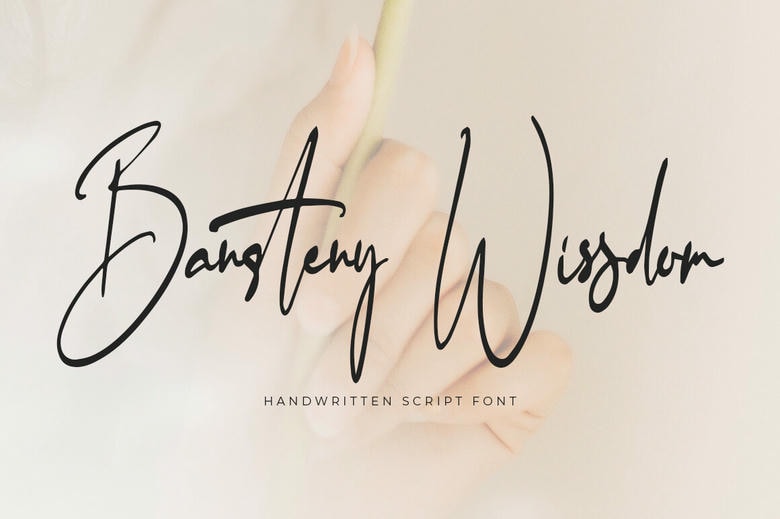
Bansteny Wissdom Font
Bansteny Wissdom is a fancy and beautiful, handwritten typeface. It presents a stunning combination of smooth lines and contrasting lines, which make the picture look dynamic and elegant at the same time. The high and curving ups and downs give the typeface a new modern feel and sophisticated look, and yet it still has a personal and natural handwritten effect.
The rhythm of the letterforms is balanced with a slightly edgy feel and the letterforms are standalone without any negative impact on readability. This font is particularly best adapted to the projects with a personal, sophisticated, and artistic touch. Branding, wedding invitation, feminine logos, signature-type header, social media graphics, beauty or fashion products and high-end packaging are the most appropriate applications.
Bansteny Wissdom Handwritten Script Font